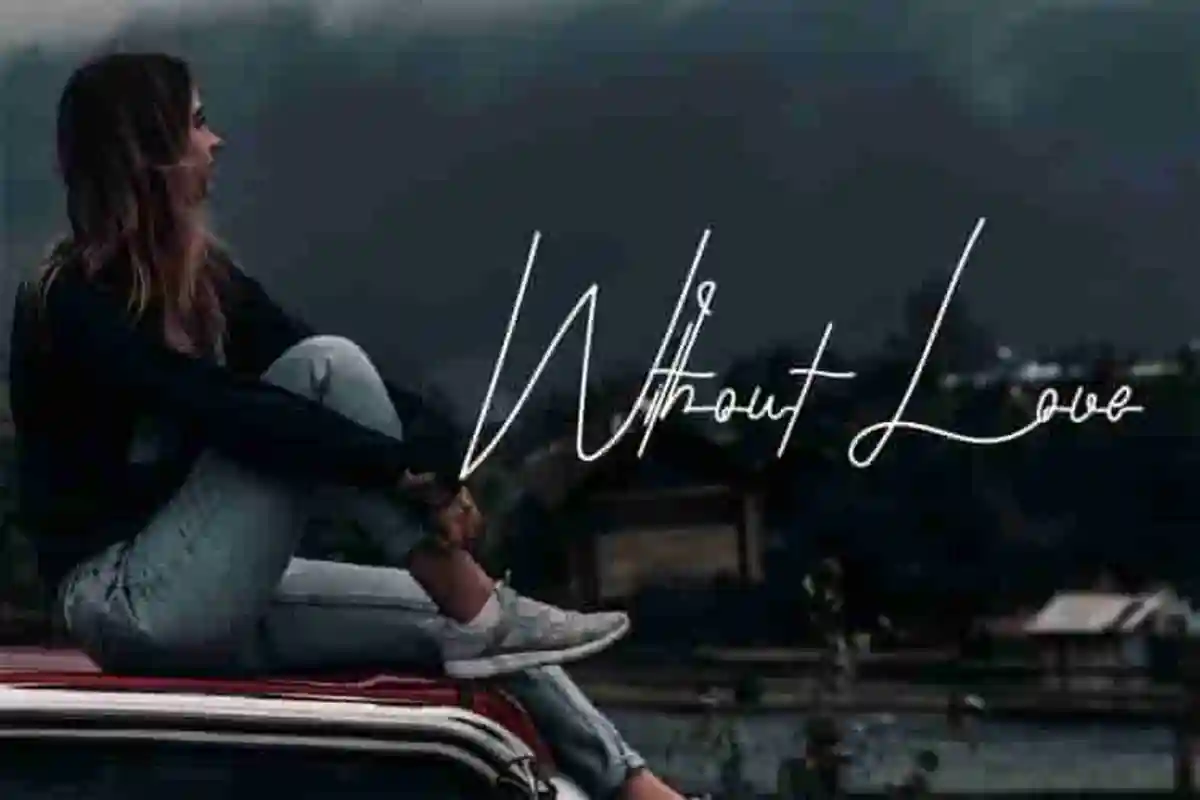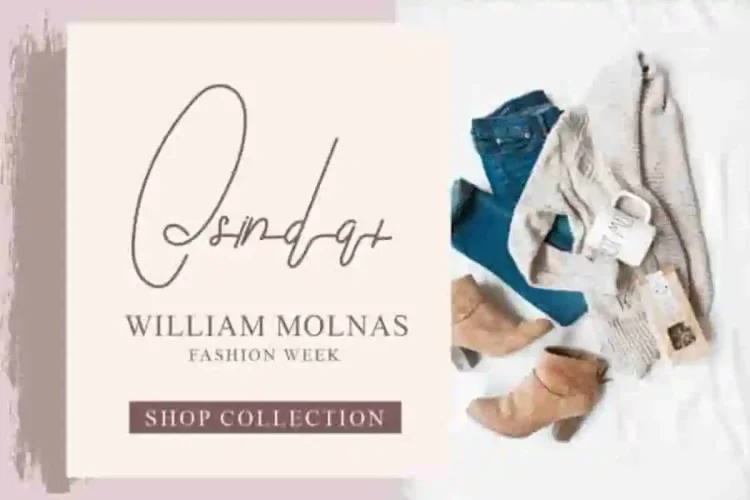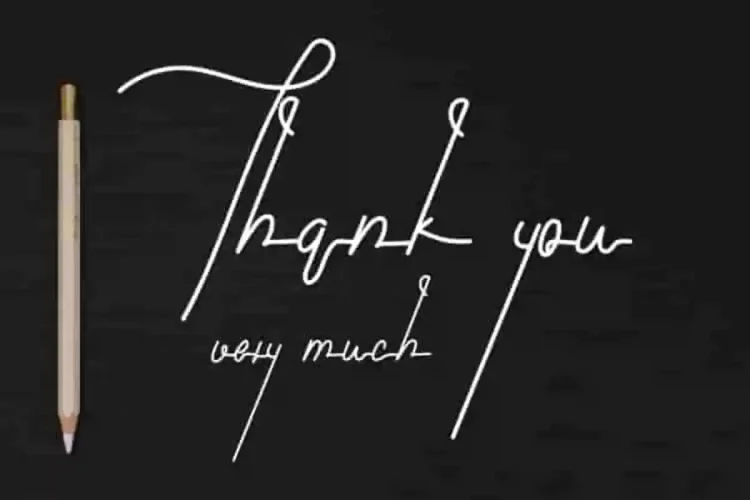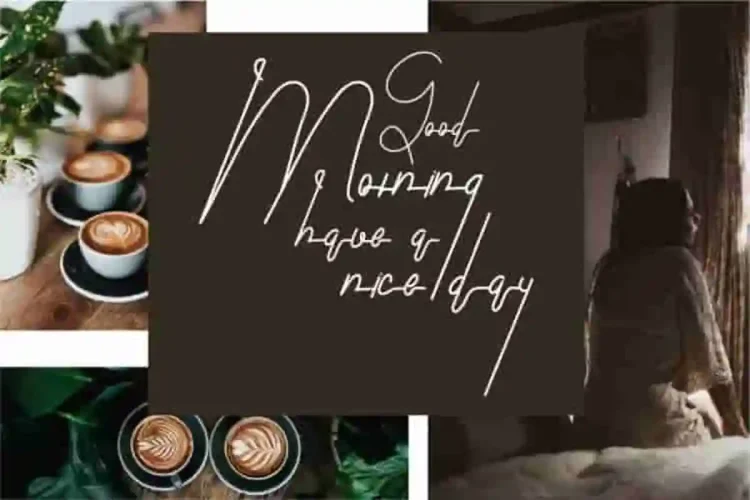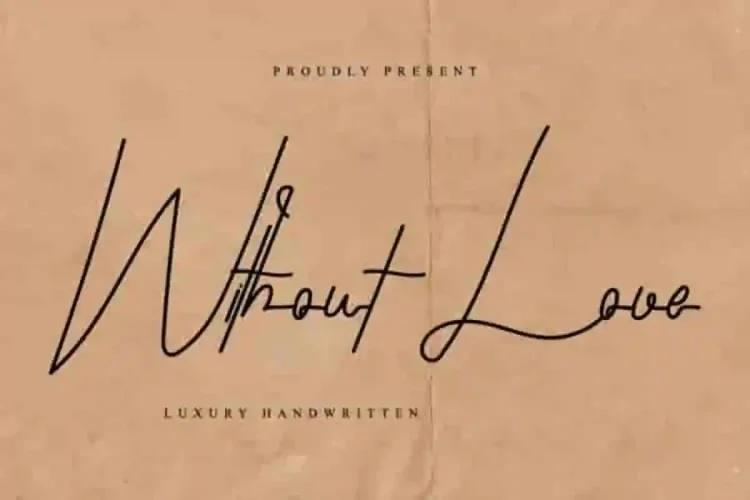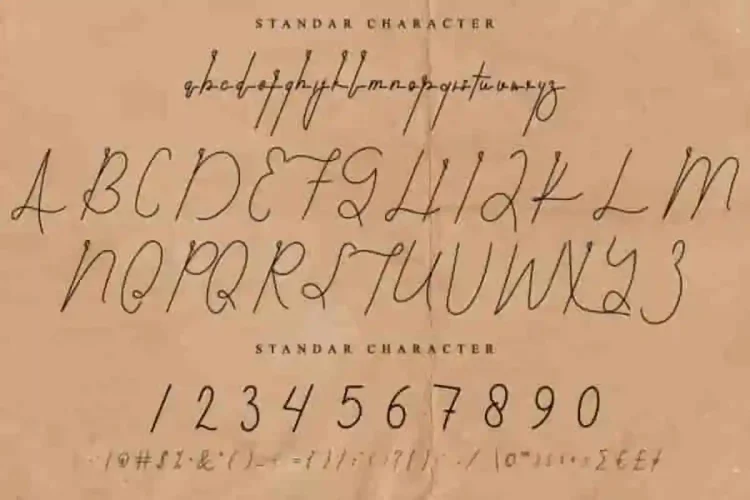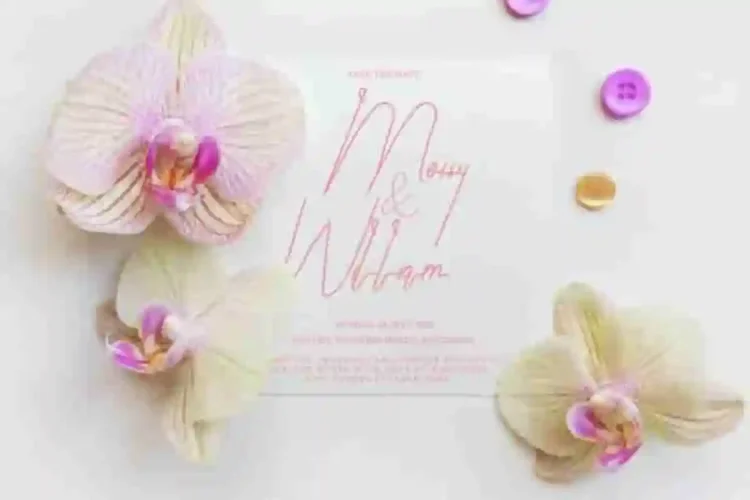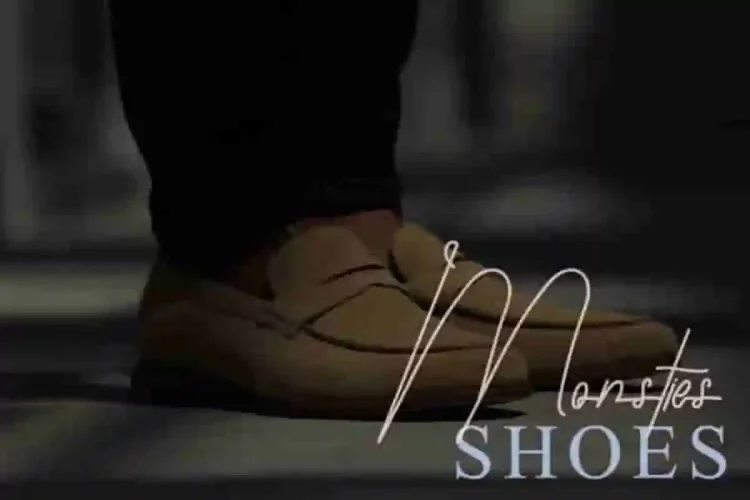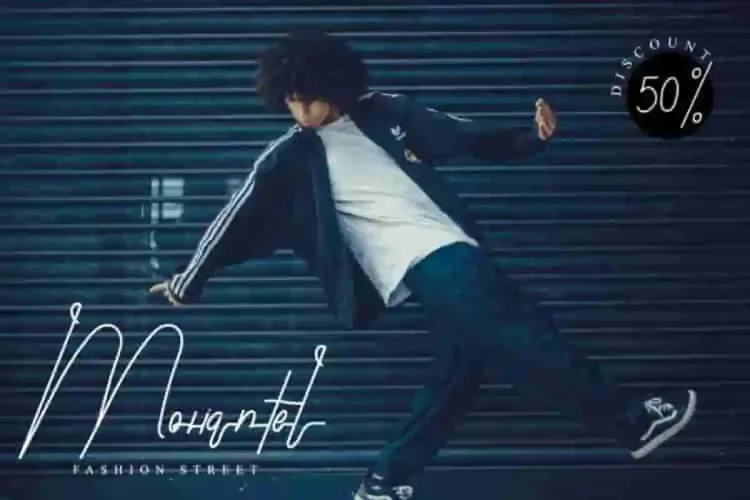
Without Love Signature Font
Without Love Font is a light signature font script with elegant handwriting style, handcrafted from our Studio here in Indonesia. Without Love Signature Font is an original signature font typeface with unique natural look. It has a stunning characters set, perfectly managed with well spaced and kerning. Designed to look stylish, classic, and authentic, this font ensures your message stands out with timeless charm.
Without Love Font will be great for any projects (with extended license) including : branding, logo, stationery, business card, signage, flyer, brochure etc. Almost all industries will be match for this typeface: wedding, events, real estate, architect, law firm, florist, gardening, makeup artist, travel, hotel, musician etc.